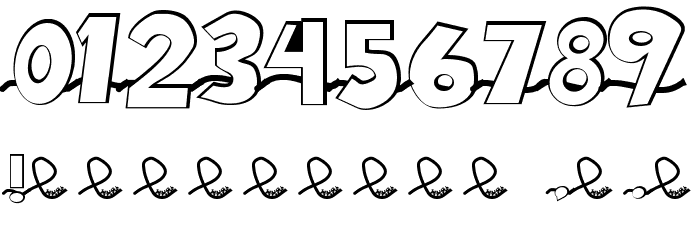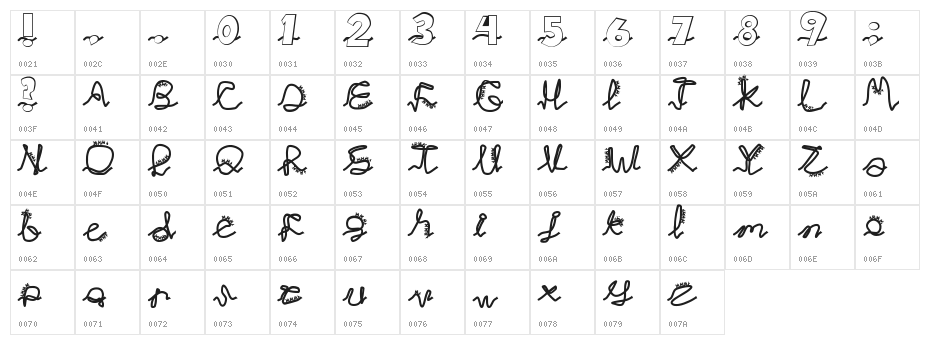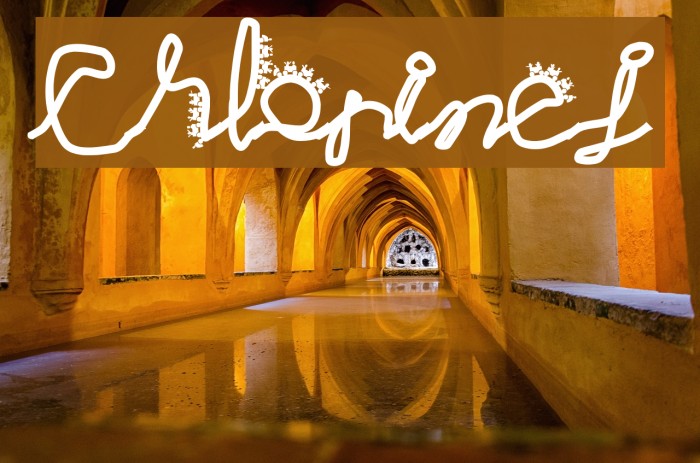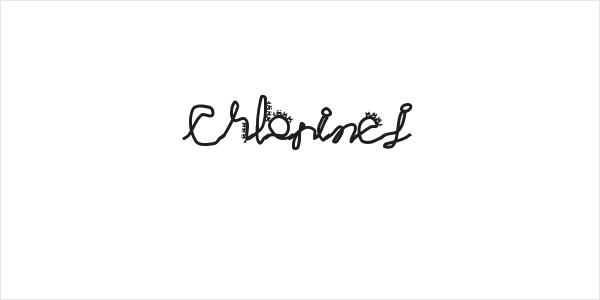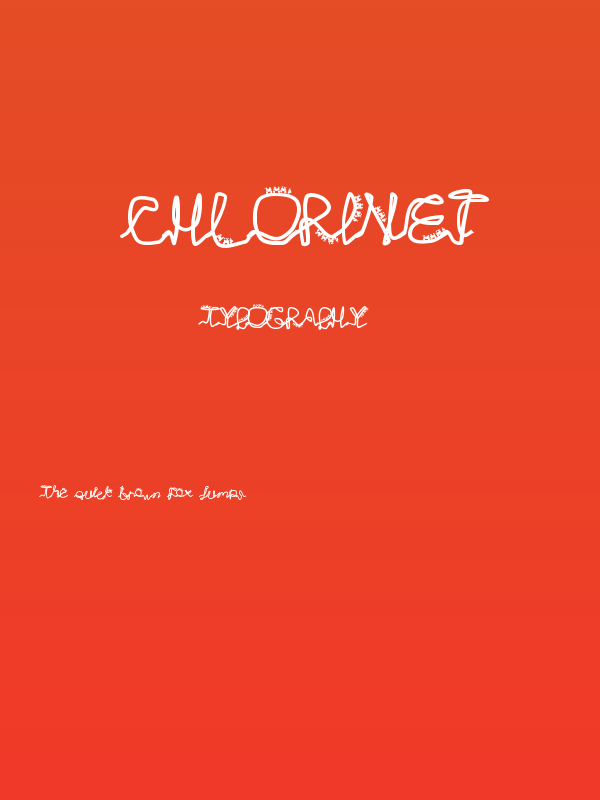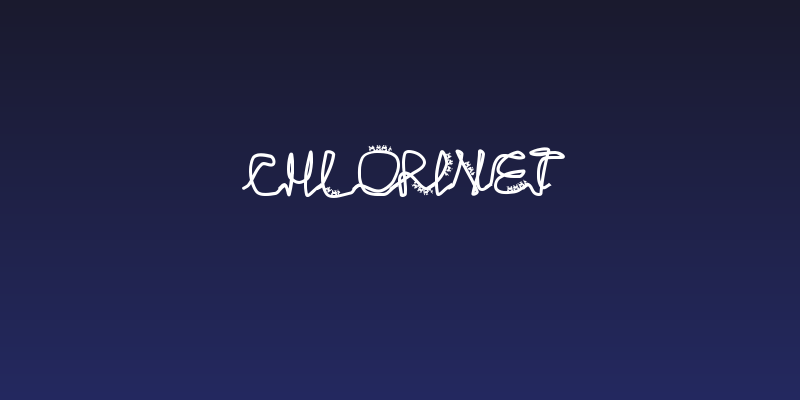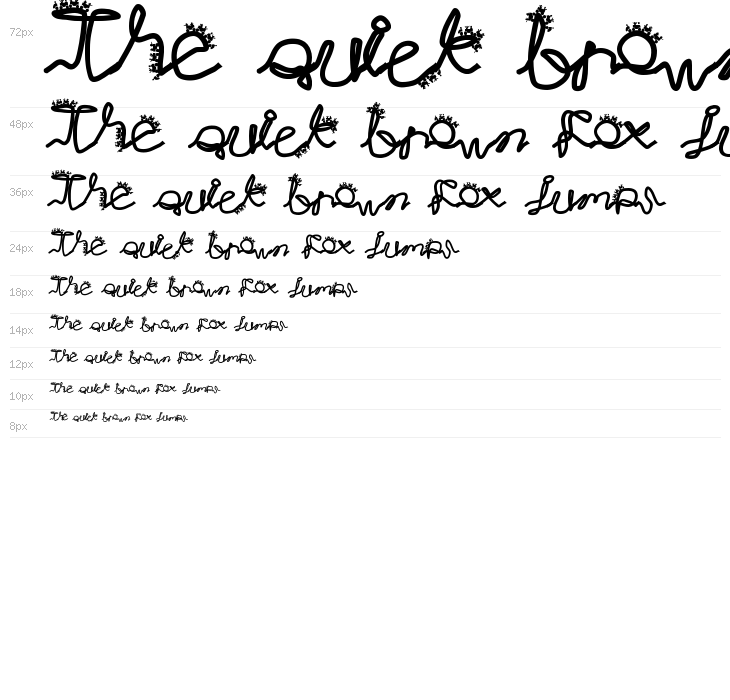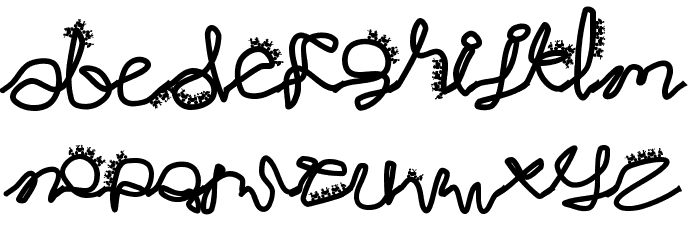
Chlorinej Font
Chlorinej Description
This font features a playful and whimsical design, characterized by its curly, looping strokes and decorative elements that resemble small bursts or splatters. The uppercase and lowercase letters maintain a consistent style, with a flowing, cursive-like appearance that adds a sense of movement and energy. The numerals are bold and outlined, providing a stark contrast to the more delicate letterforms. Special characters are similarly styled, with an emphasis on creativity and flair. This font is ideal for projects that require a fun, informal touch.
Overall StyleWhimsical and playful
Use CaseHeadlines, Logos, Creative projects
Proposed ProjectsIdeal for children's book covers, playful branding, party invitations, and creative posters.